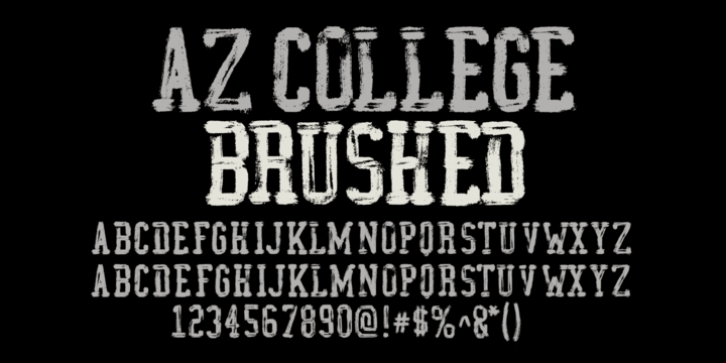
AZ College Brushed font was inspired from a combination of typical collegiate t-shirts designs and also the current wave of A&F t-shirt designs (rough painted look).
This font utilizes an “old look” to the line work which is designed to have a “worn feel” to it. It is designed to compliment it’s sister font; AZ College.
Ideal for use as headline or sub-head text in you design.